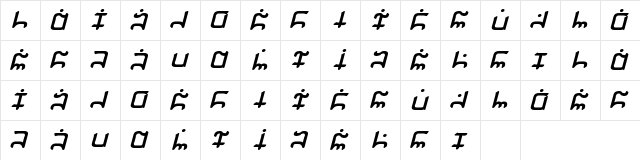
Gargish Bold Italic Font Preview
| Foundry | Neale Davidson |
| Designer | Neale Davidson |
Design Context for Gargish Typeface
Gargish offers clean, dependable letterforms without strong stylistic allegiance, making it a practical choice for designers who need flexibility. The dynamic lean of this cut emphasises speed and emphasis in any layout. The heavy weight commands attention and anchors typographic hierarchies.
Pro Tip: Try Gargish for annotation and caption copy alongside an upright companion — the contrast in angle creates a dynamic but ordered typographic system.